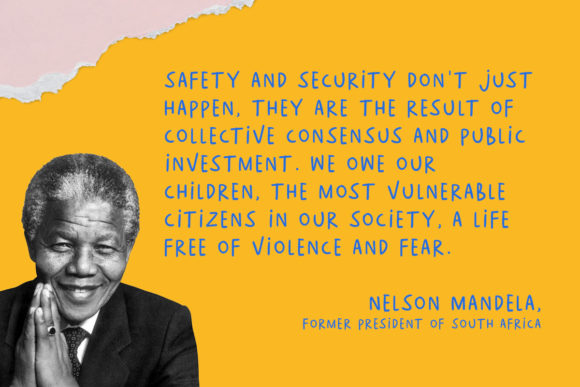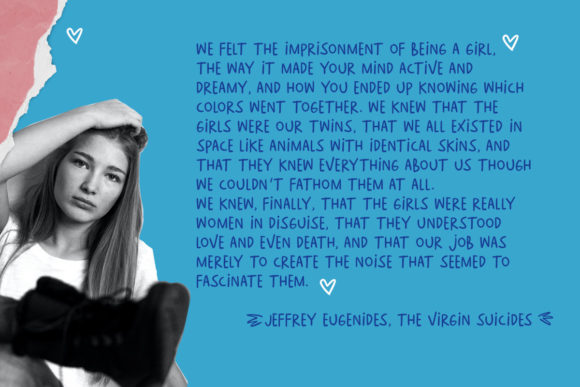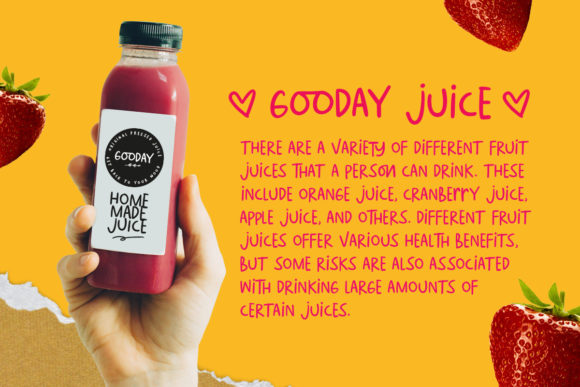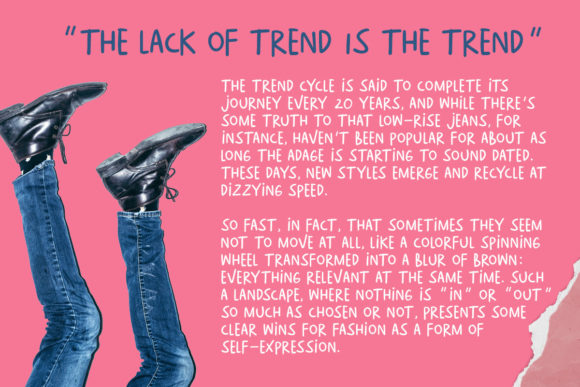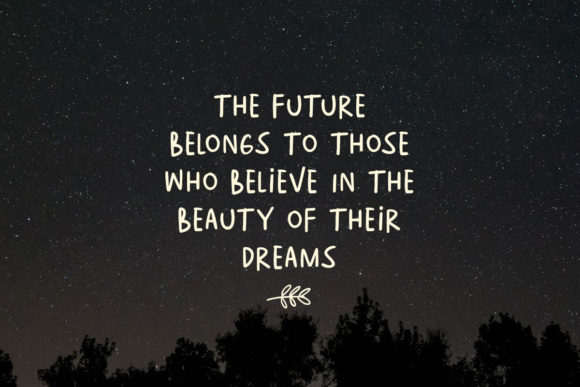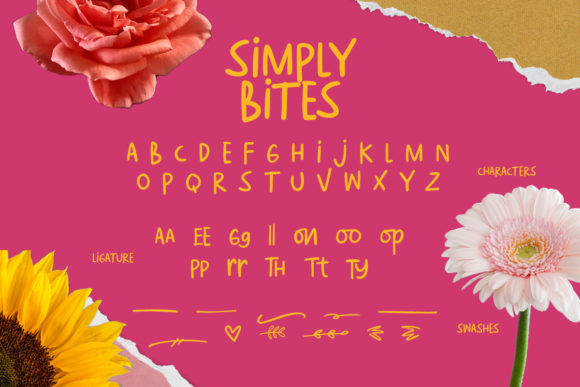
Introduction to Simply Bites Font
Remember the thrill of creating something from scratch? The rush of ideas, the excitement of bringing a concept to life, and the satisfaction of holding a finished project in your hands? For designers, this feeling is what drives us to keep pushing the boundaries of creativity. And today, we’re excited to introduce a new design resource that’s sure to become a favorite: the Simply Bites Font.
With its simple and cute handwriting monoline sans serif style, Simply Bites Font is the perfect addition to any creative project. Whether you’re designing party invitations, child books, or social media graphics, this font is sure to bring a touch of whimsy and charm to your work. Plus, with a transparent background, it’s easy to layer and customize to fit your unique vision.
Key Features of Simply Bites Font
- High-quality, unique font design ideal for creative projects, offering a distinctive touch to any visual content.
- Features a transparent background, allowing for seamless integration with any design element or background.
- Designed with precision, this font boasts a high resolution (up to 300 DPI), ensuring crisp and clear readability.
- Available in multiple font sizes, ranging from 12 to 72 points, catering to various design requirements and creative projects.
- Perfect for use in logos, branding materials, social media graphics, and other creative projects where a unique, high-quality font is essential.
Honest Review: Simply Bites Font
I recently stumbled upon the Simply Bites Font while searching for free design resources online. At first glance, I was drawn to its modern and clean aesthetic, making it perfect for creative projects that require a touch of sophistication.
- ✨ High-quality typography with a transparent background, ideal for overlaying on images or backgrounds.
- ✨ Versatile font family with multiple weights and styles to suit various design needs.
- ⚠️ Limited language support, which may be a concern for designers working on international projects.
- ⚠️ Some characters may appear slightly distorted when resized, which could impact readability.
Overall, I’m impressed with the Simply Bites Font’s clean design and high-quality typography. While it may not be perfect, it’s a great addition to any designer’s toolkit. I’d recommend it for projects that require a modern and sleek aesthetic, and I’m looking forward to exploring more of its features.
To get the most out of the Simply Bites Font, experiment with different font sizes and combinations to create visually appealing designs. Consider pairing it with other fonts to add depth and variety to your project.
The Simply Bites Font is ideal for creating logos, icons, graphics, and other visual elements that require a clean and modern look. It’s perfect for branding, advertising, and other creative projects that demand high-quality design resources.